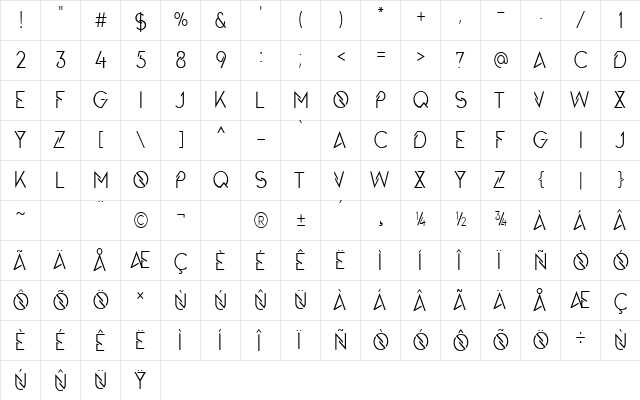
The Queens Gambit Regular
Design Context for The Queens Gambit Typeface
The Queens Gambit is a composed and adaptable typeface that performs quietly and consistently across a wide range of design contexts.